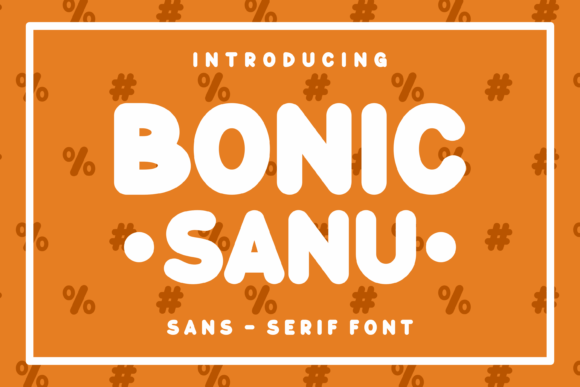
Unleash the Charm of Bonic Sanu Font: A Key to Unforgettable Printed Letters
In the realm of typography, where letters dance and stories unfold, there exists a font that captivates the senses and ignites the imagination: Bonic Sanu. This enchanting sans serif font, crafted with meticulous care by lelevien, is not merely a collection of characters; it's an artistic masterpiece that breathes life into your printed letters.
Immerse yourself in the world of Bonic Sanu, where every letter is a delicate brushstroke, a whispered secret, a heartfelt sentiment waiting to be expressed. This font possesses an innate ability to transform the ordinary into the extraordinary, turning mundane words into captivating tales.
With its playful curves and whimsical charm, Bonic Sanu is the perfect font for adding a touch of whimsy to your printed letters. Whether you're crafting heartfelt notes to loved ones, designing eye-catching posters, or creating captivating invitations, this font will elevate your words and make them shine.
Embrace the versatility of Bonic Sanu, a font that seamlessly adapts to your every creative endeavor. Its friendly and approachable nature makes it an ideal choice for children's books, playful branding, and cheerful social media posts. But don't be fooled by its lighthearted appearance; Bonic Sanu also exudes an air of sophistication, lending itself beautifully to elegant wedding invitations, sophisticated business cards, and polished presentations.
As you embark on your creative journey with Bonic Sanu, you'll discover a font that sparks joy, ignites passion, and captivates hearts. Its charming personality and endless versatility will transform your printed letters into cherished keepsakes, leaving a lasting impression on all who encounter them.
Don't settle for ordinary fonts that fade into the background. Choose Bonic Sanu, the font that dances off the page, captivating readers with its playful spirit and undeniable charm. Elevate your printed letters to new heights and create memories that will be treasured for years to come.